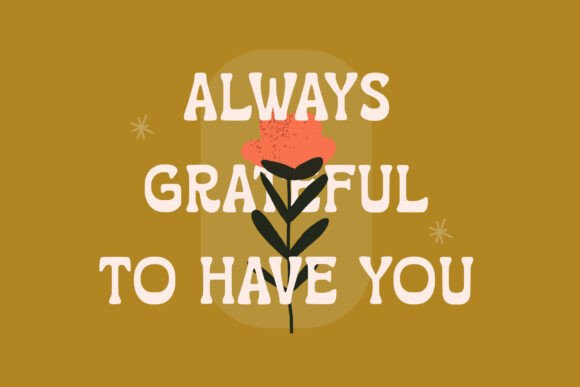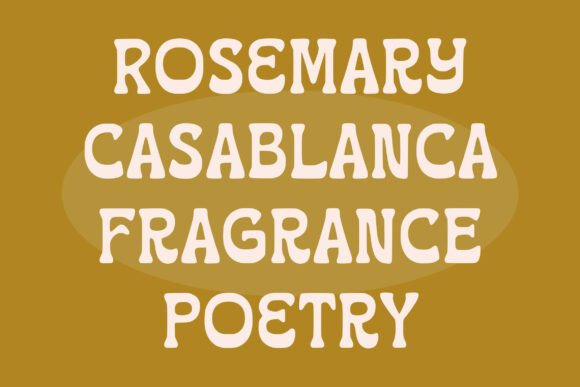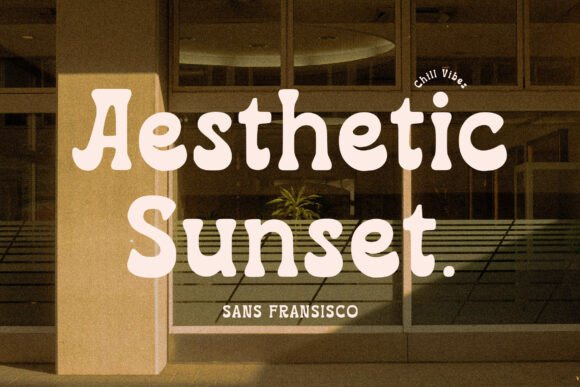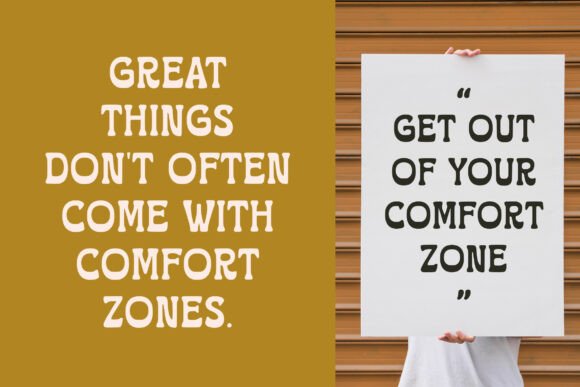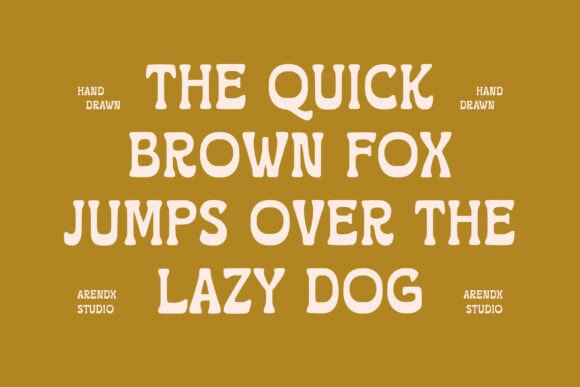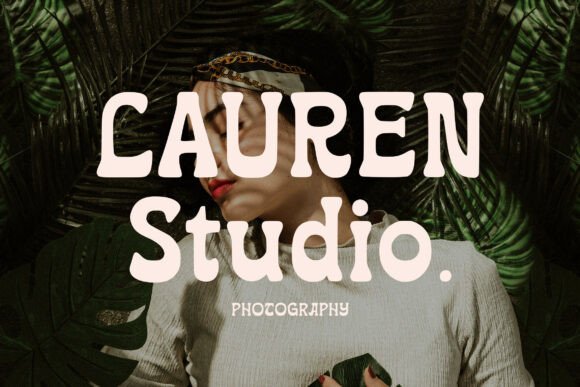
Introduction to Gouder Font
Have you ever been browsing through a vintage market or antique shop, surrounded by the nostalgic charm of years gone by, and suddenly, you stumble upon a unique, hand-crafted sign that catches your eye? The way the letters dance across the transparent background, their bold curves and playful shapes standing out against the worn wooden background, is a moment of pure design magic. It’s moments like these that inspire us to create, and for designers, finding that perfect design resource is key to bringing our creative projects to life.
That’s where the Gouder Font comes in – a high-quality, bold, and quirky serif display font that embodies the spirit of those vintage finds. Crafted by Arendxstudio, Gouder Font combines a nostalgic feel with modern usability, making it the perfect addition to any design arsenal.
Key Features of Gouder Font
- High-quality design resource ideal for creative projects, offering a unique and modern aesthetic.
- Transparent background, allowing for seamless integration with any design or background.
- Available in multiple font sizes and resolutions, making it suitable for a range of creative projects.
- Unique characteristics include a bold, sans-serif design with a subtle flair, perfect for headings and titles.
Honest Review: Gouder Font
I recently stumbled upon the Gouder Font and I’m excited to share my thoughts on this design resource. As a designer, I’m always on the lookout for high-quality fonts that can elevate my creative projects.
- The Gouder Font has a beautiful, elegant design that works well for various applications, from headings to body text.
- The font is highly legible, even at small sizes, making it perfect for digital displays and print materials.
- The Gouder Font has a transparent background, which can sometimes make it difficult to read against certain backgrounds.
- The font family is relatively small, with only a few weights and styles available.
How to Use Gouder Font
Tips for Getting the Most Out of Gouder Font
To get the most out of Gouder Font, experiment with different font sizes, colors, and styles. You can also use it in combination with other design elements, such as images and graphics, to create unique and eye-catching designs.
The Gouder Font is suitable for a variety of creative projects, including logos, brochures, business cards, and social media graphics. Its high-quality, transparent background makes it perfect for overlays and text effects, adding a professional touch to your designs.